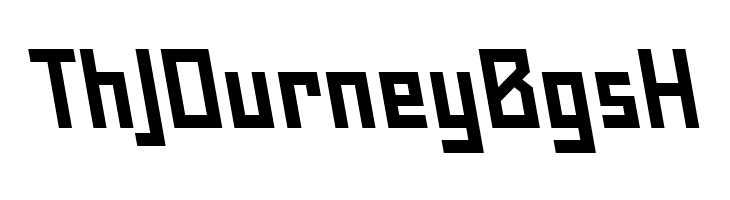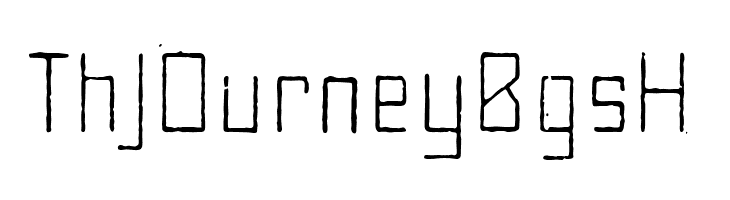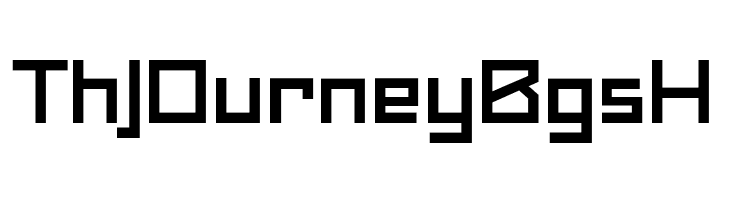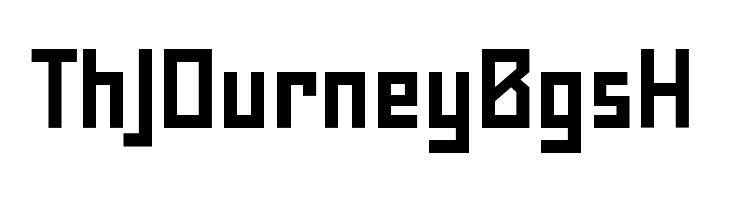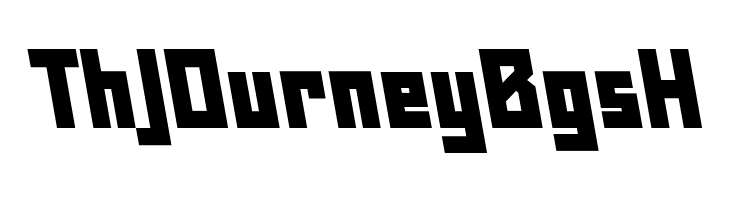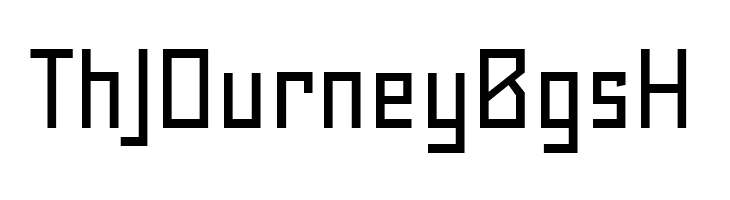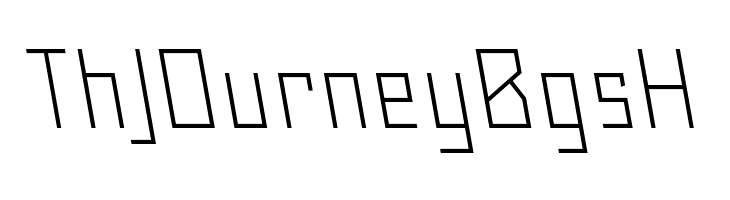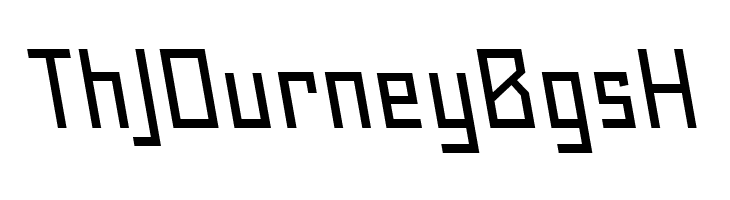
• Maiers Neue Nr.8 Reduced Bold Slanted
A bold, slanted, and angular font with a modern and dynamic style.
• Maiers Alte Nr.8 Reduced Light
A hand-drawn, monoline font with a rustic and organic feel.
A bold, expanded font with a geometric and modern style.
• Maiers Neue Nr.8 Reduced Bold
A bold, geometric font with a modern and industrial style.
A bold, angular, and slanted font with a modern and dynamic style.
• Maiers Neue Nr.8 Reduced Regular
A geometric and structured font with sharp angles and a modern appearance.
A geometric, angular font with a modern, slanted design.
• Maiers Alte Nr.8 Reduced Bold
A bold, distressed font with a vintage, handcrafted look.
• Maiers Neue Nr.8 Reduced Light
A geometric, minimalist font with clean lines and angular shapes.
• Maiers Neue Nr.8 Reduced Slanted
A geometric, angular font with a modern, slanted design.